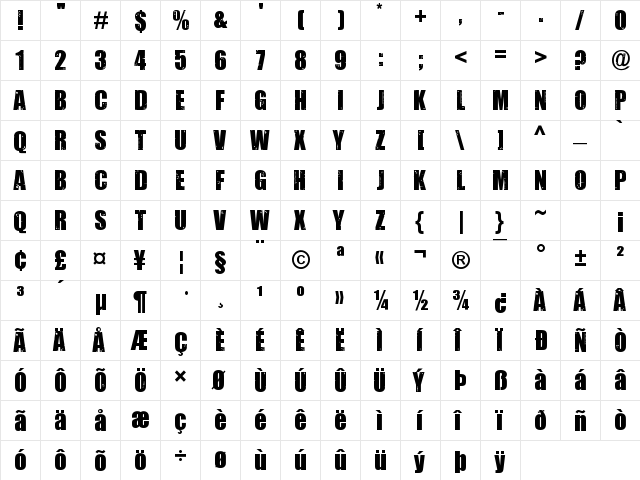
Impacted 2.0 Regular Font Preview
Impacted 2.0 Regular
Design Context for Impacted 2.0 Typeface
Impacted 2.0 brings high-energy athletic personality to the page — its confident, muscular forms are built for impact.
Built for sports team identities, athletic apparel, event posters, and high-energy promotional material.
Font Pairing: Use alongside a condensed or geometric sans for supporting copy — keep the pairing bold, functional, and free of ornament.
Pro Tip: Impacted 2.0 thrives on contrast — try it large, bold, and tight against a clean background for maximum visual impact.